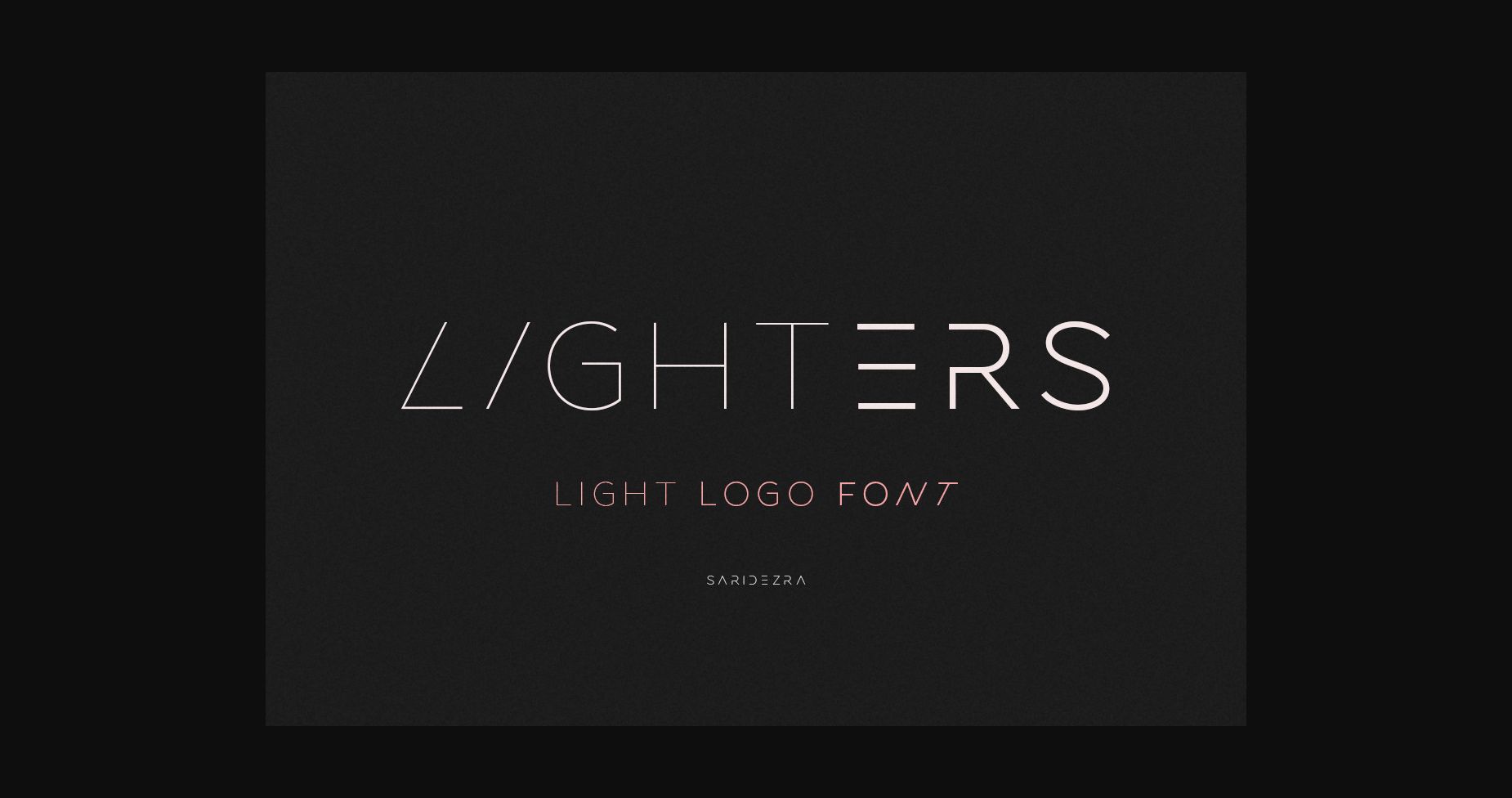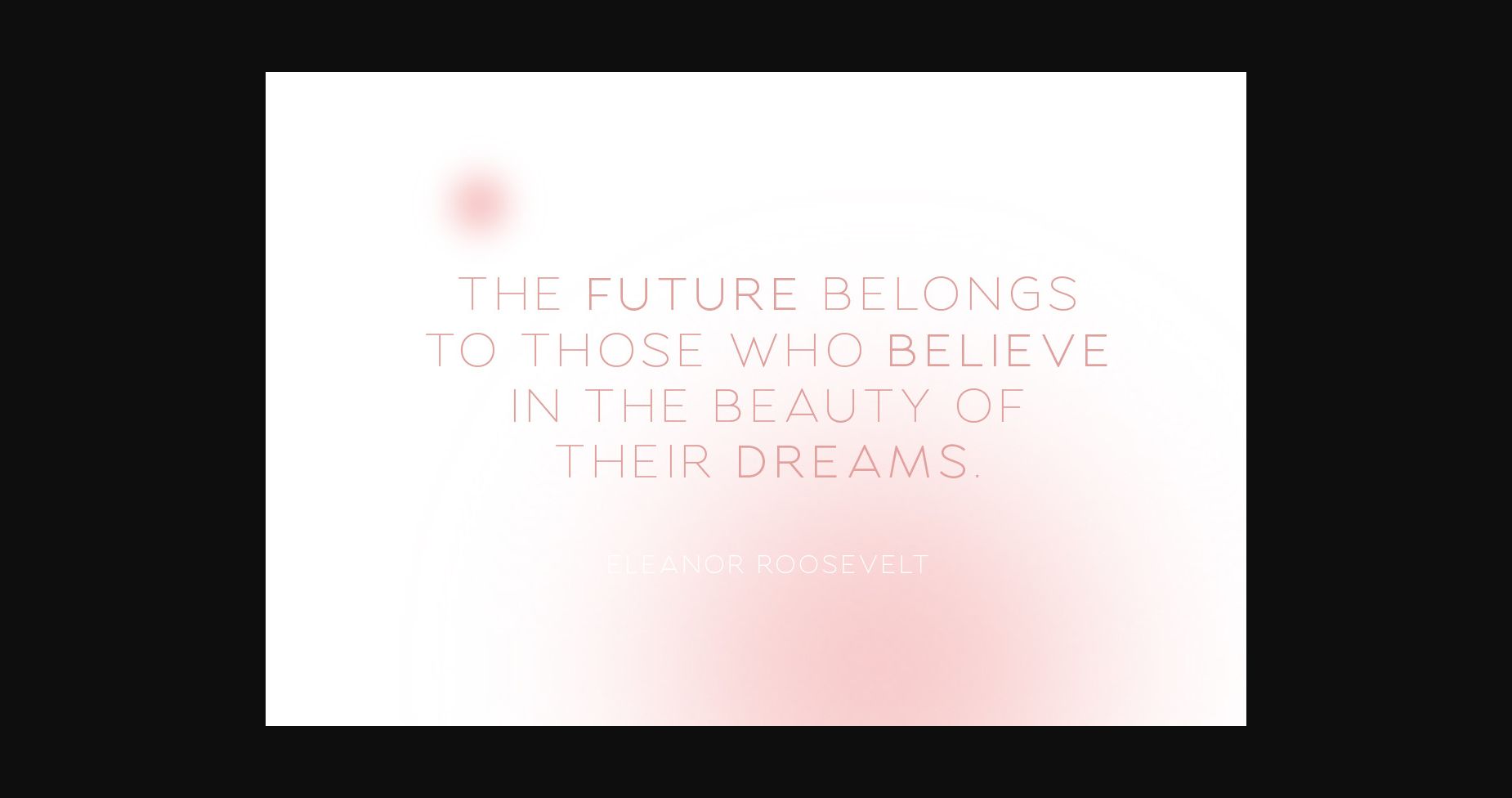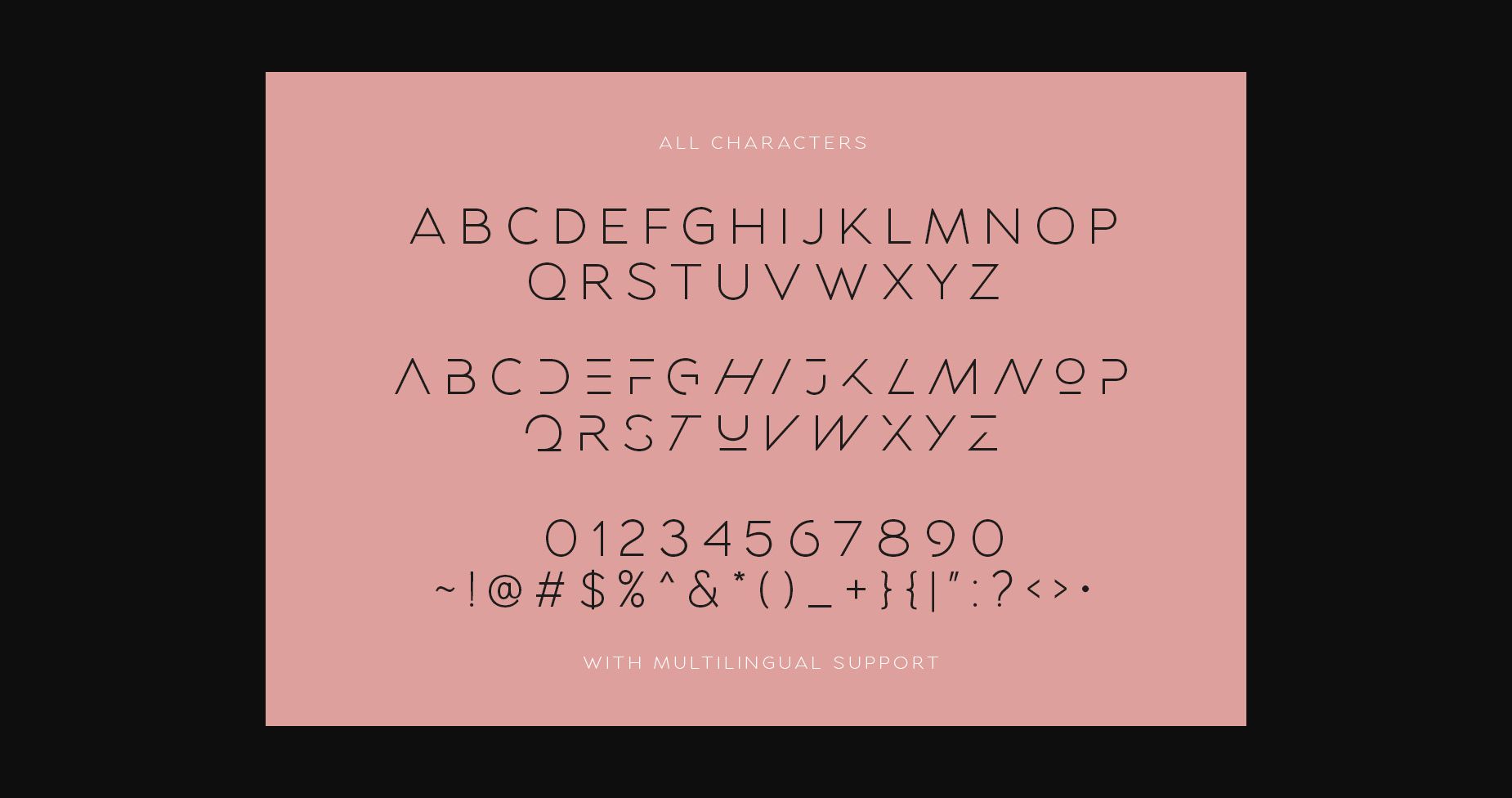
About Lighters Font
Lighters are a light minimalist logo font family with three weight styles that you can use together will make your design cooler. You can use this font for any purpose, especially to make logotype and poster designs. You can mix and match the uppercase and lowercase to make your logo more advanced.